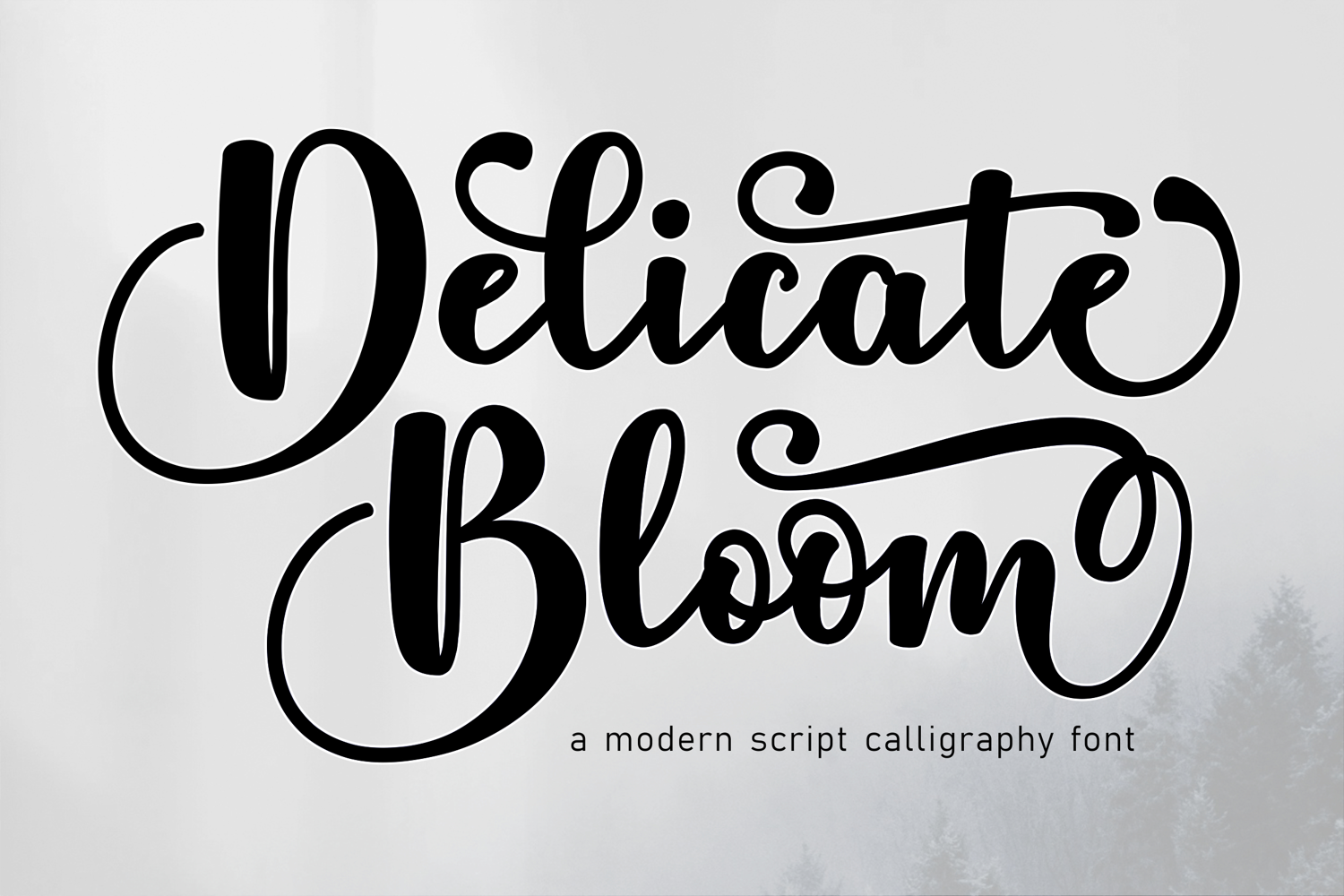
Delicate Bloom Script
Delicate Bloom
Delicate Bloom is a font that exudes softness and elegance. With graceful strokes and a feminine touch, this font will elevate any design project to the highest level, be it branding, titles, wedding designs, invitations, signs, logos, labels, and more!